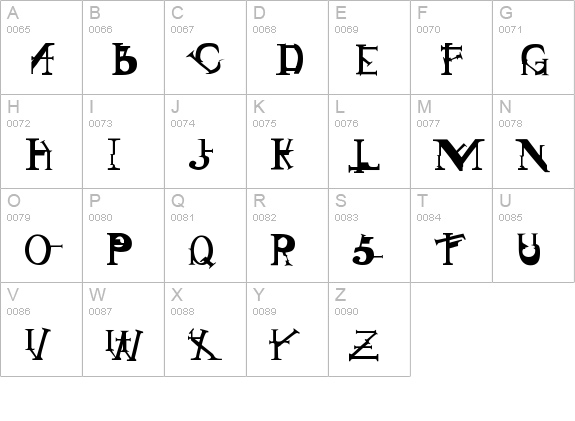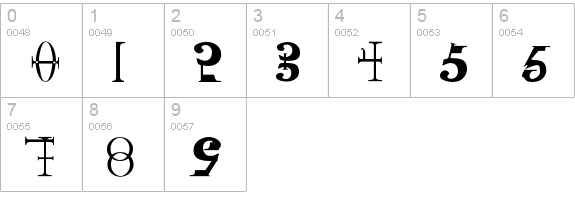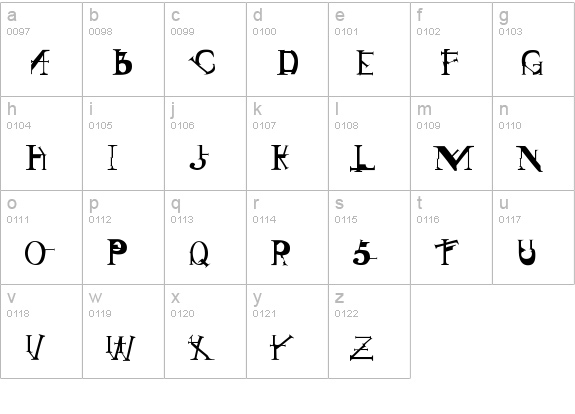
Sin Gothic Font Details
Introducing Sin Gothic, a captivating and enigmatic font that effortlessly combines the timeless elegance of Gothic letterforms with a modern twist. With its distinctive and mysterious aura, Sin Gothic is the perfect choice for those seeking to add a touch of edgy sophistication to their designs. This remarkable font features sleek, elongated lines that gracefully dance across the page, creating an atmosphere of intrigue and allure. Its bold and commanding presence makes it ideal for headlines, logos, posters, and any project that calls for a touch of dark allure. But what truly sets Sin Gothic apart is its unique quality of being free. Yes, you read it right! Sin Gothic is freely available to download at FontsMarket.com. This means you can enhance your creative projects with this exceptional font without having to break the bank. Whether you're a graphic designer, a web developer, or simply an enthusiast looking to elevate your personal creative endeavors, Sin Gothic is here to inspire and empower you. Its versatility allows it to seamlessly fit into a wide range of design styles, from contemporary to vintage, from corporate to artistic, making it an invaluable addition to any font collection. So, don't miss out on the opportunity to embrace the captivating allure of Sin Gothic. Go ahead and download it for free at FontsMarket.com, and let this extraordinary font breathe life into your designs, leaving a lasting impression on your audience. Unleash your creativity and indulge in the beauty of Sin Gothic today!